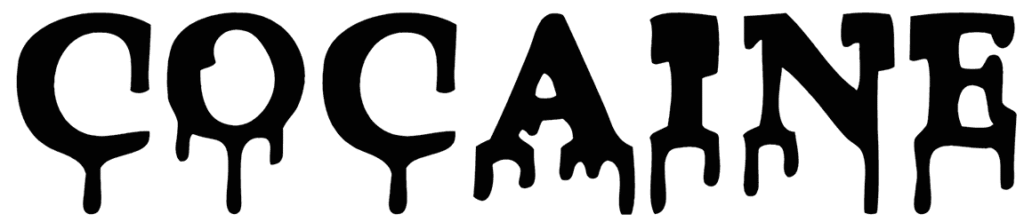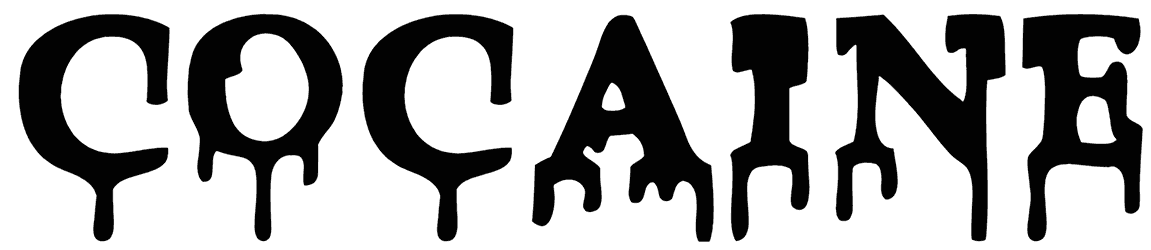
Cocaine Font
Would you like to have a scary classic face for your coming project? Cocaine can be what you desire as a horror font. With bloody serif letters, this blood dripping font could be a horrifying and spine-chilling choice for movie posters, festival ads, illustrations, or the like.Cocaine doesn’t have lowercase letters and punctuation but would be matched with many modern or retro designs.